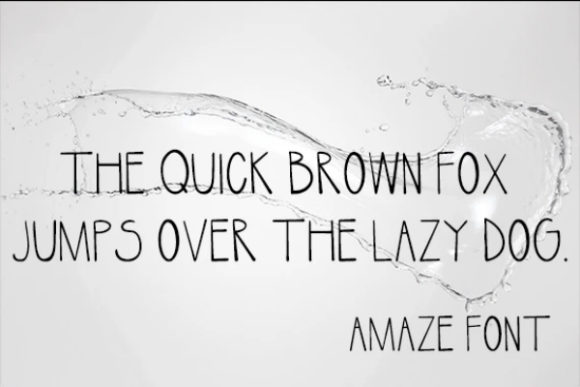
The Amaze Font: A Designer’s New Best Friend
I still remember the frustration of working on a project, hours spent searching for the perfect font, only to end up with something that just didn’t quite fit. The client wanted something “down-to-earth” and “readable,” but everything I tried seemed to fall flat. That’s when I stumbled upon the Amaze font, and let me tell you, it was love at first sight! ✨
- ✨ Casual charm: Amaze has this effortless, laid-back vibe that makes it perfect for a wide range of projects.
- ✅ Readability: The font is incredibly easy to read, even on busy backgrounds or at small sizes.
- ✅ Versatility: Whether you’re using it as a headline or body text, Amaze adapts seamlessly.
While Amaze is an amazing font, it’s not perfect. ⚠️ One thing I’ve noticed is that it can get a bit lost on very light backgrounds – a slight adjustment to the font color or adding a subtle shadow can fix this.
🤔 Another thing to keep in mind is that, like many sans-serif fonts, Amaze might not be the best choice for very long blocks of text, such as novels or academic papers. For those, a serif font might be more suitable.
Exploring OpenType Features
The Story Behind Amaze
Amaze was crafted with love by a team of designers who wanted to create a font that felt both modern and approachable. Inspired by everyday conversations and the beauty of simplicity, Amaze was born. It’s a font that doesn’t take itself too seriously but always gets the job done with style.
Q: Is Amaze suitable for body text?
A: Absolutely! Amaze is designed to be highly readable, making it perfect for both headings and body text.
Q: Does Amaze support multiple languages?
A: Yes, Amaze supports a wide range of languages, thanks to its comprehensive character set.
Q: How does Amaze perform on different backgrounds?
A: Amaze is versatile and performs well on both light and dark backgrounds. For busy or textured backgrounds, consider adjusting the font color or adding a subtle shadow for better visibility.